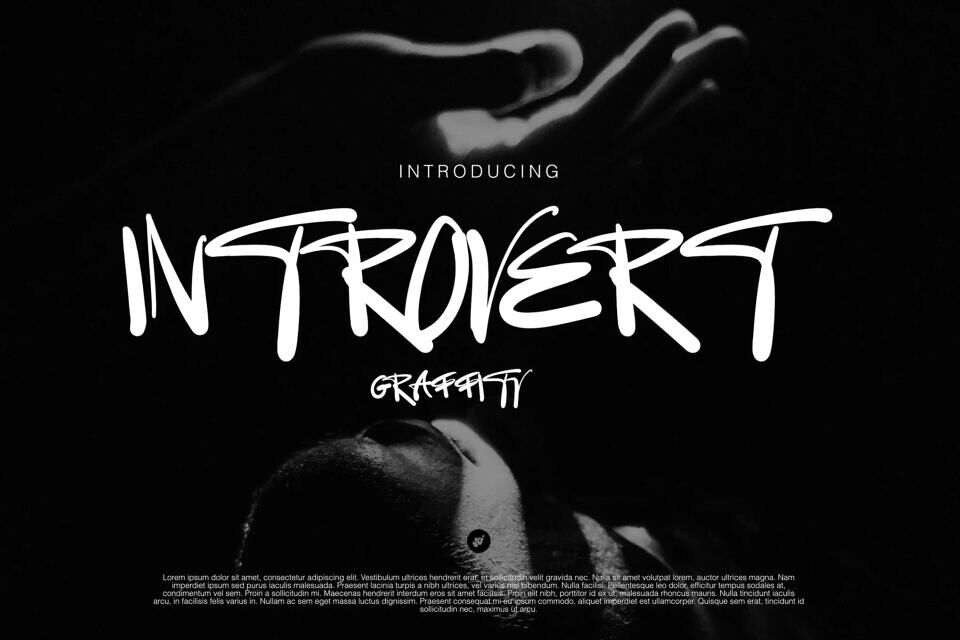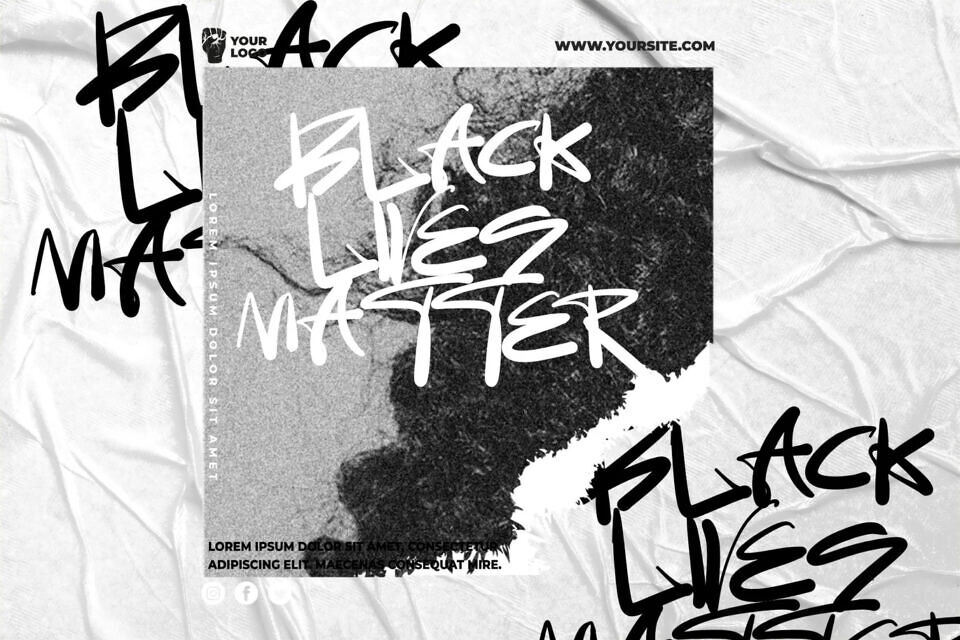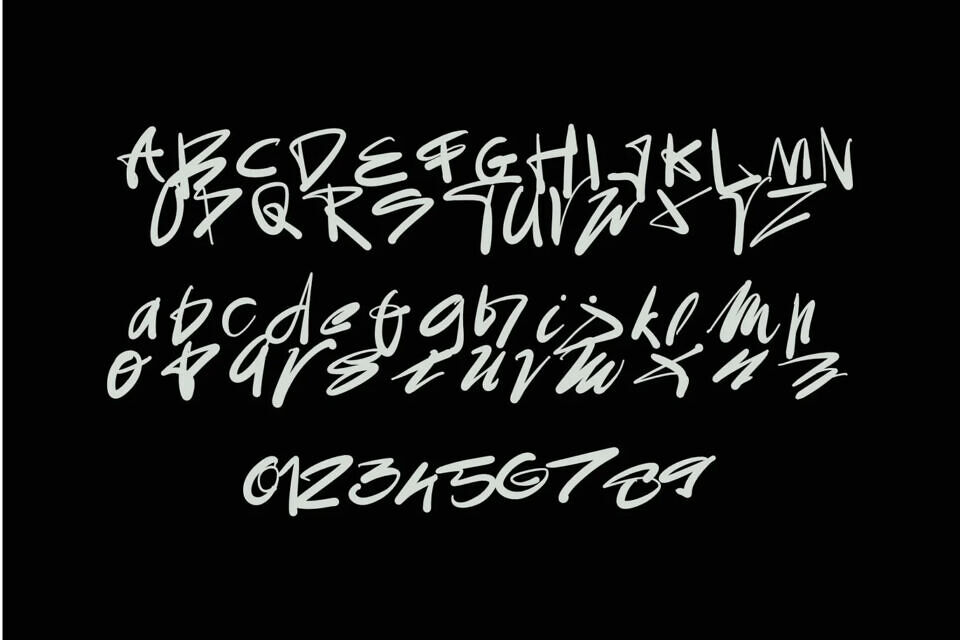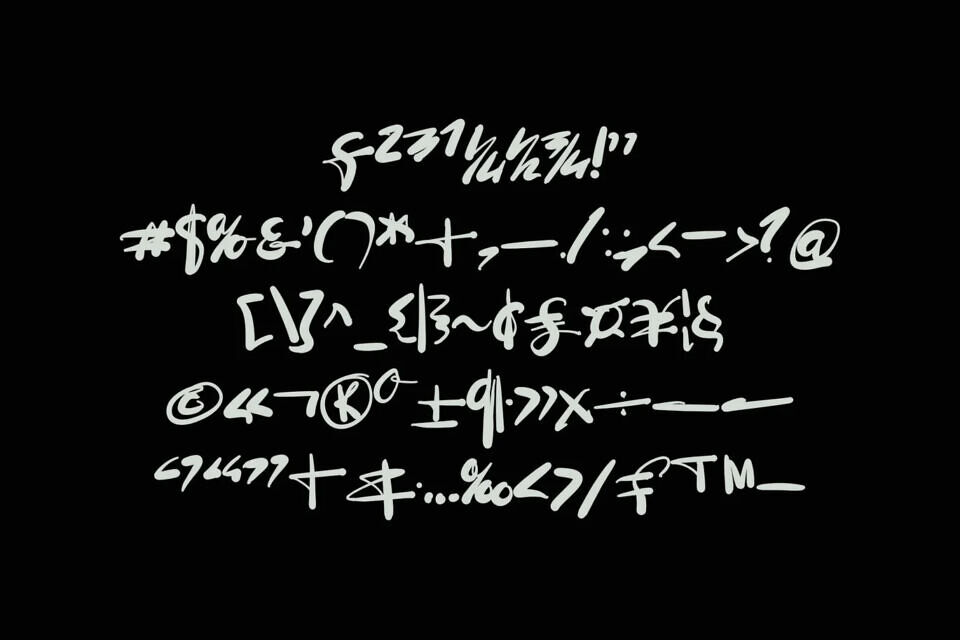
Introvert Graffity Font inspired by street art, full of expression, color, and a freestyle. Their main characteristics include bold, striking, dynamic letterforms, often appearing like handwritten spray-painted text. This style reflects boldness, creativity, and freedom of expression.